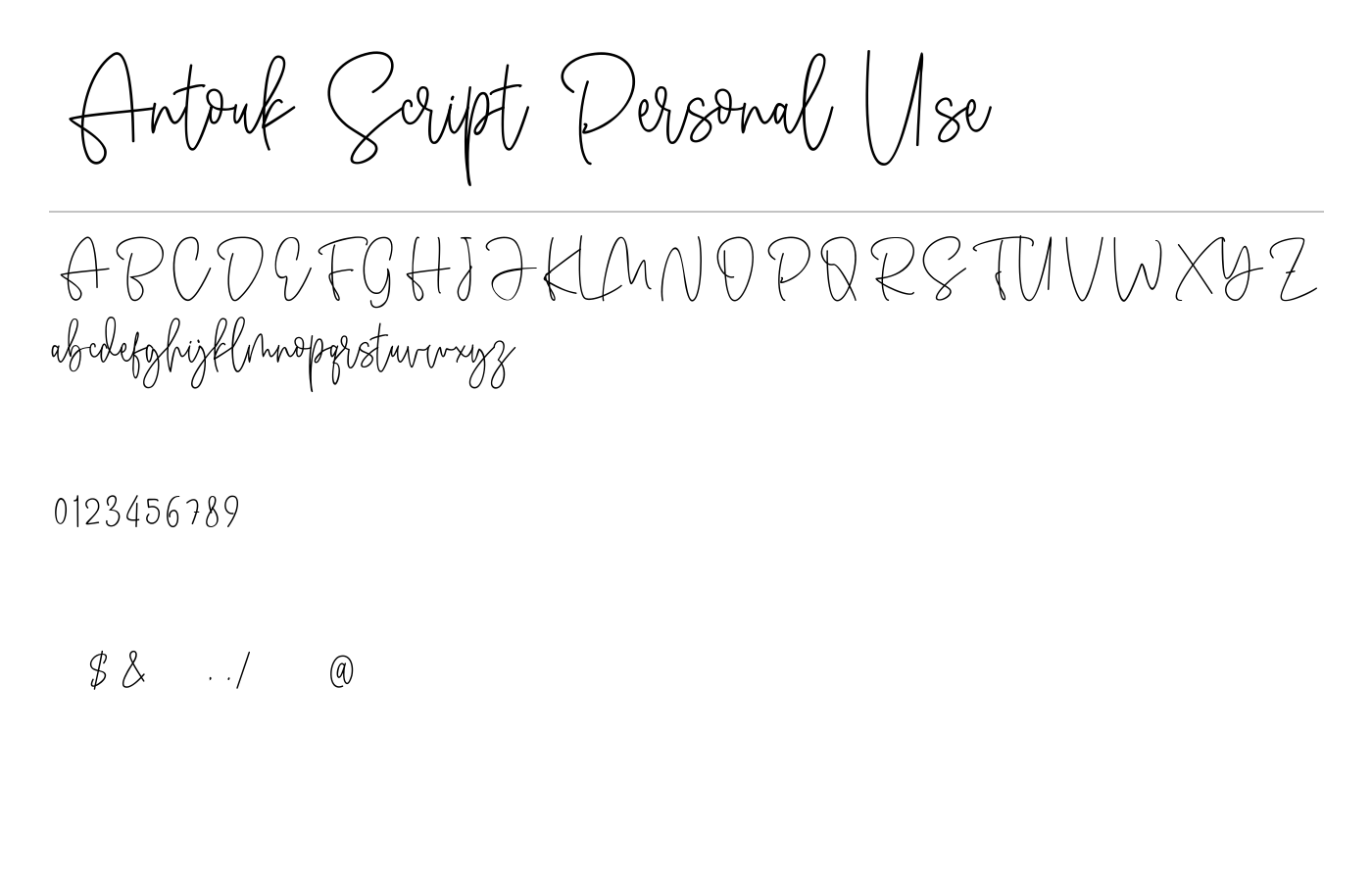
Antouk Script Personal Use is a delicate, handwritten script font with a tall, slender structure and graceful, flowing lines. Its thin strokes and elegant loops give it a modern, airy feel, ideal for adding a personal and stylish touch to invitations, branding, and creative projects. This font works best in designs where a sophisticated yet casual, approachable tone is desired.
Antouk Script Personal Use Font
About Antouk Script Personal Use Font
| Font family | Antouk Script Personal Use Font |
| Designer | Fadhil |